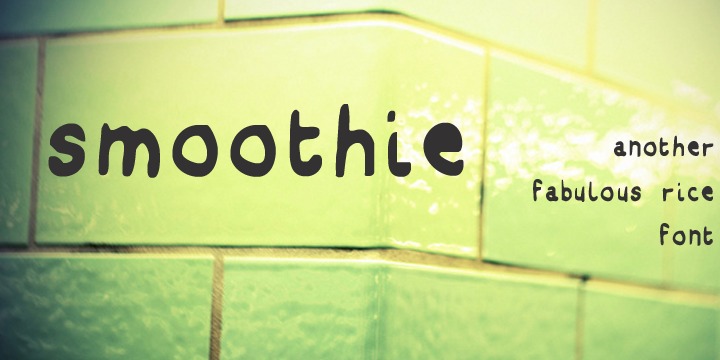
• Smoothie™
There are some words that are better uttered than shouted. The word “smoothie” is one of them. For all your uttering needs comes a small font with a big personality : “Smoothie”.
A unique lowercaps font based on handwritten letters, it will suit the needs of all the little secrets and little messages that need to be whispered.